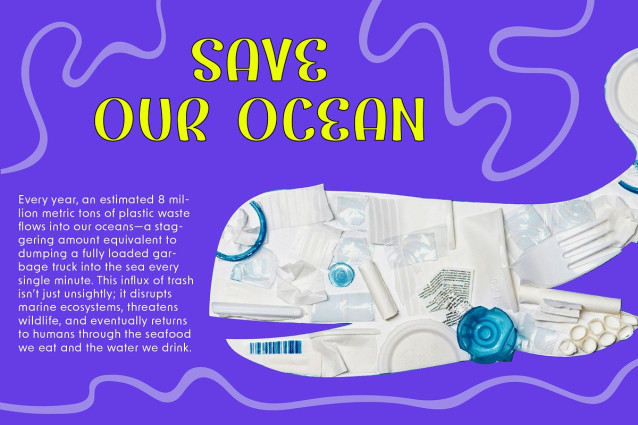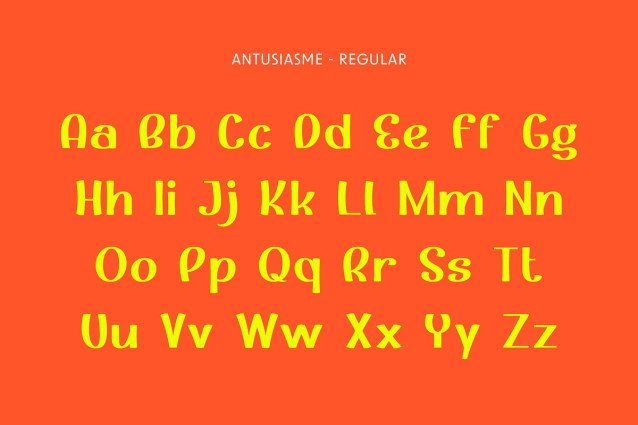
Antusiasme Font
Antusiasme Font is a very good font for those who want to make a funny and interesting statement. Its clean, bold lines make it a great choice for logos, titles, and body text. With its features, you can easily create a cohesive look for your brand or project. Plus, its simplicity makes it easy to read and understand, so you can be sure your message is being delivered loud and clear.